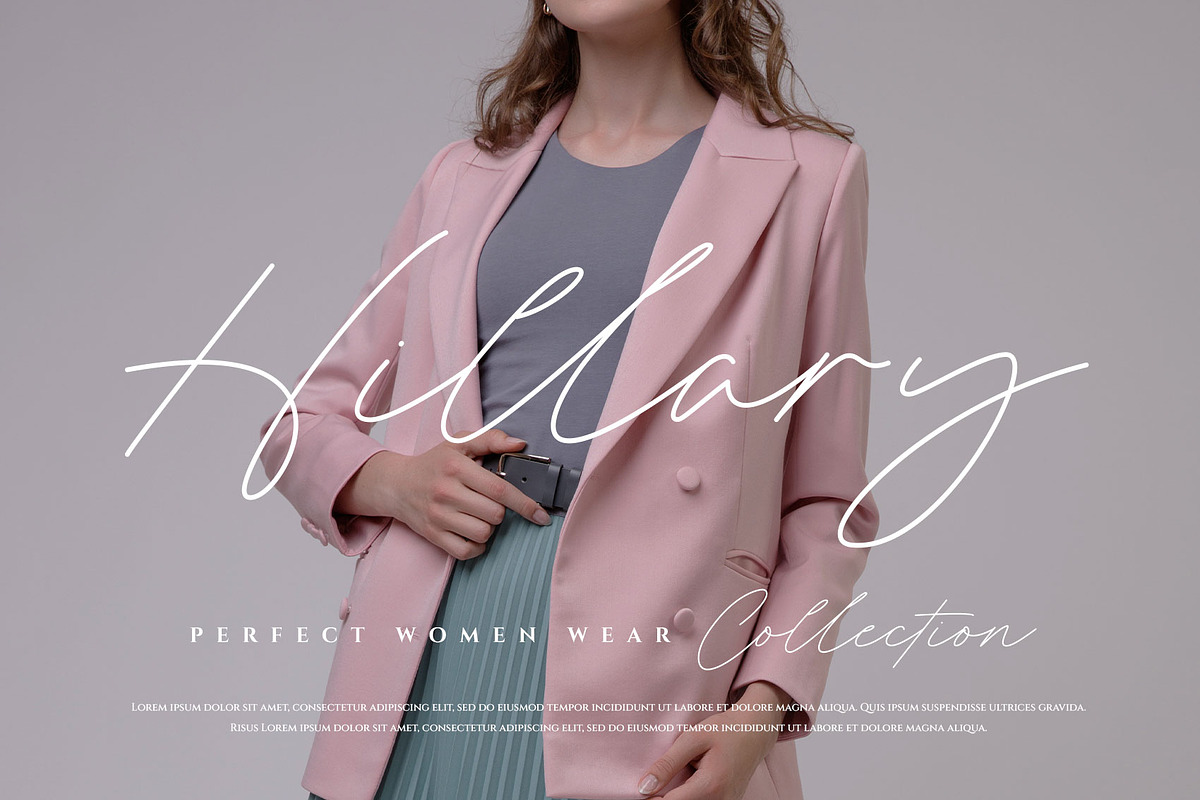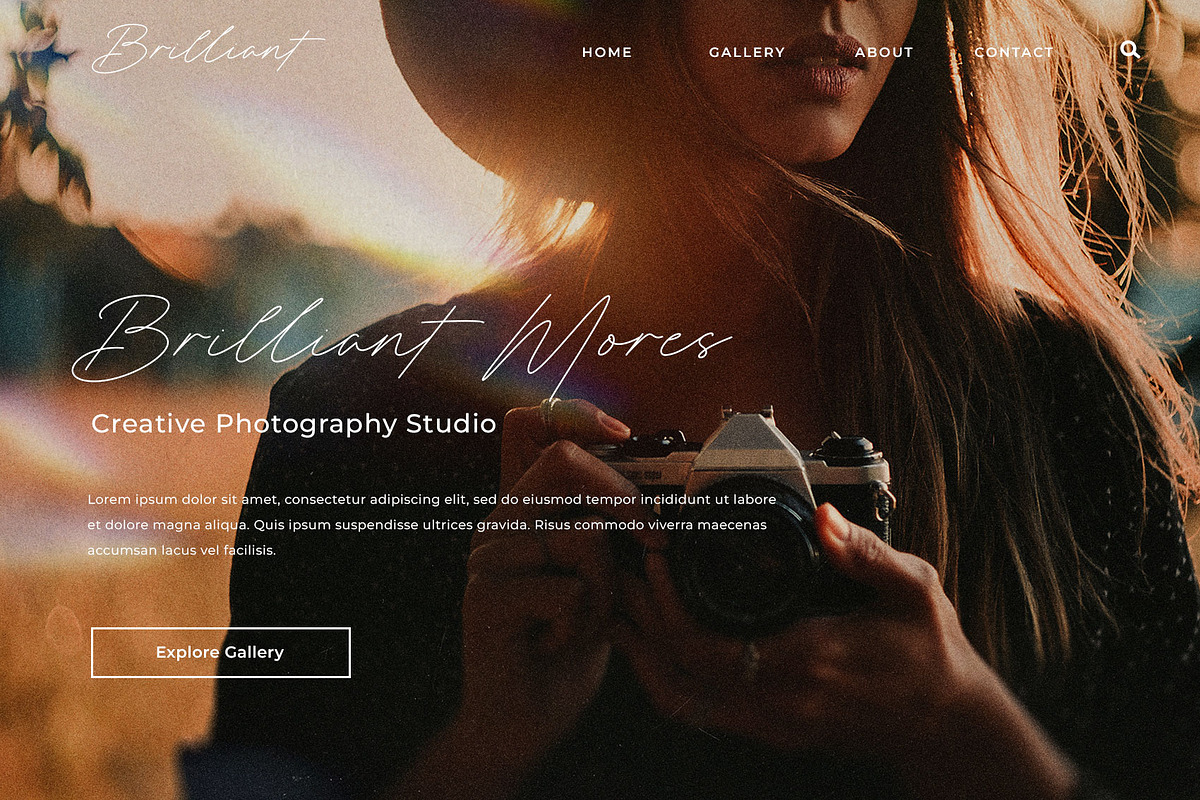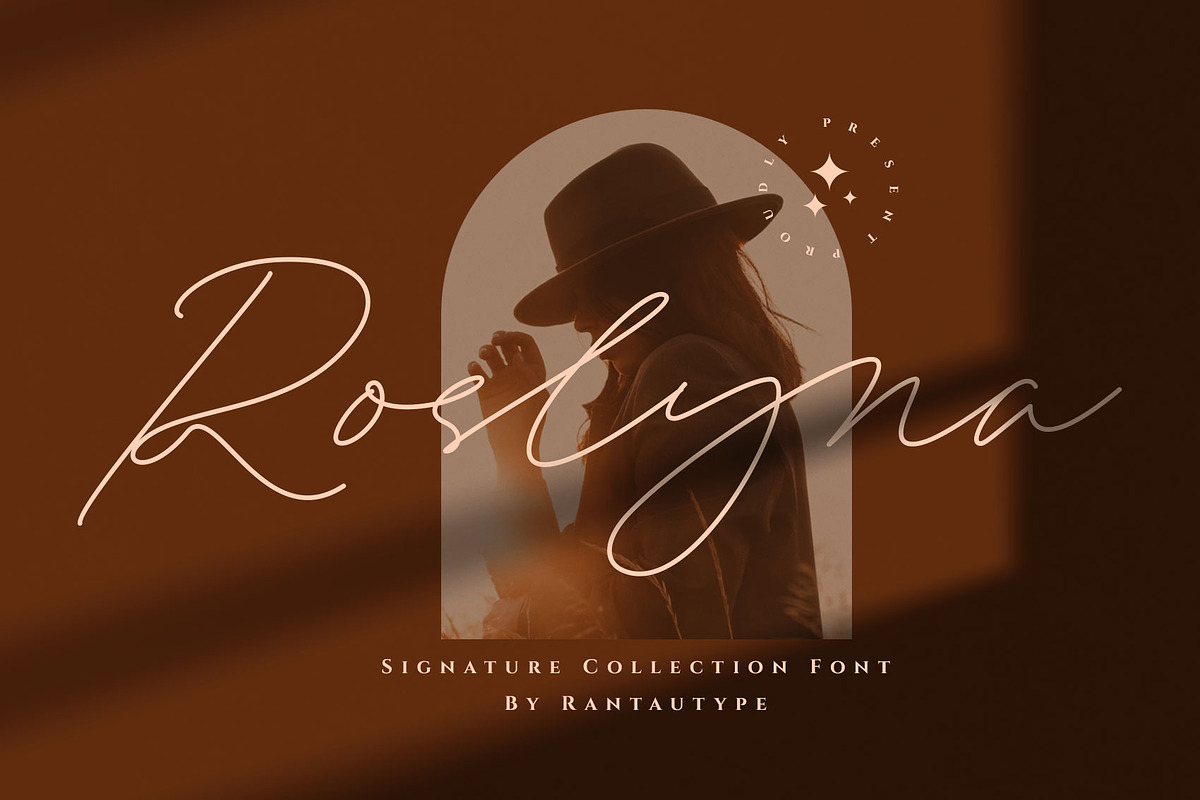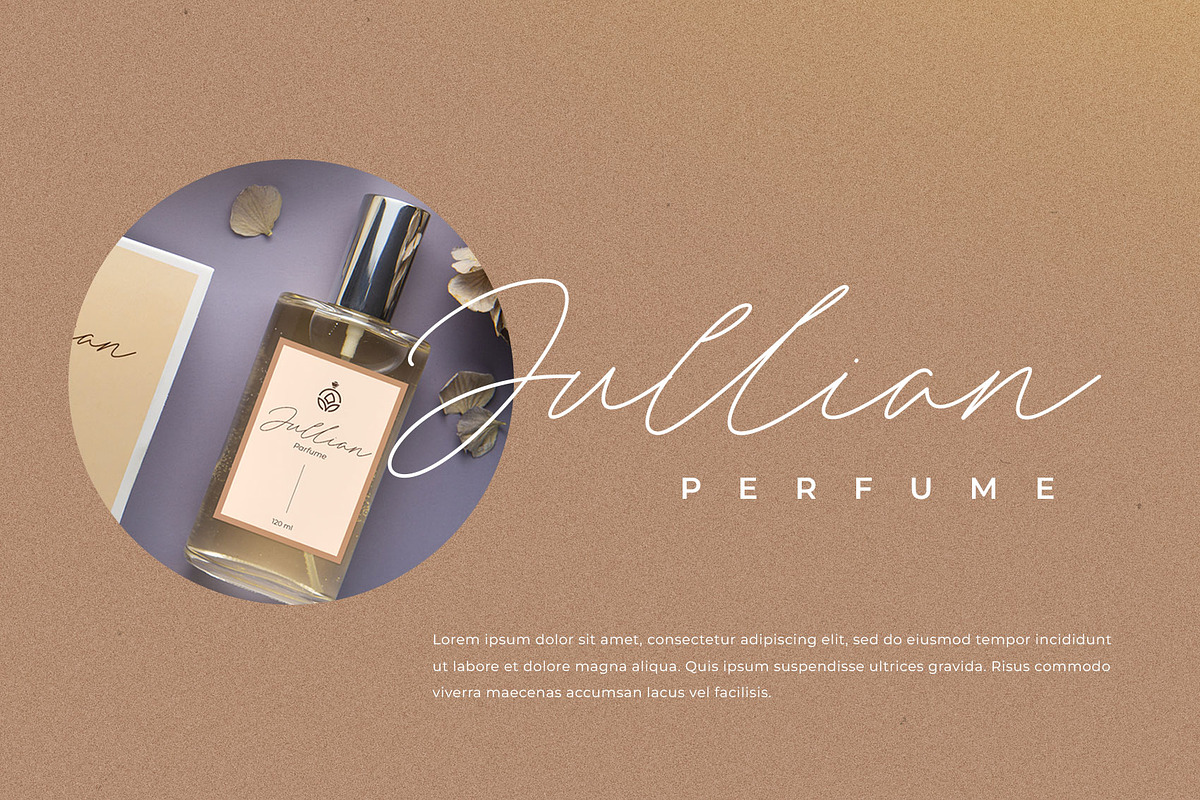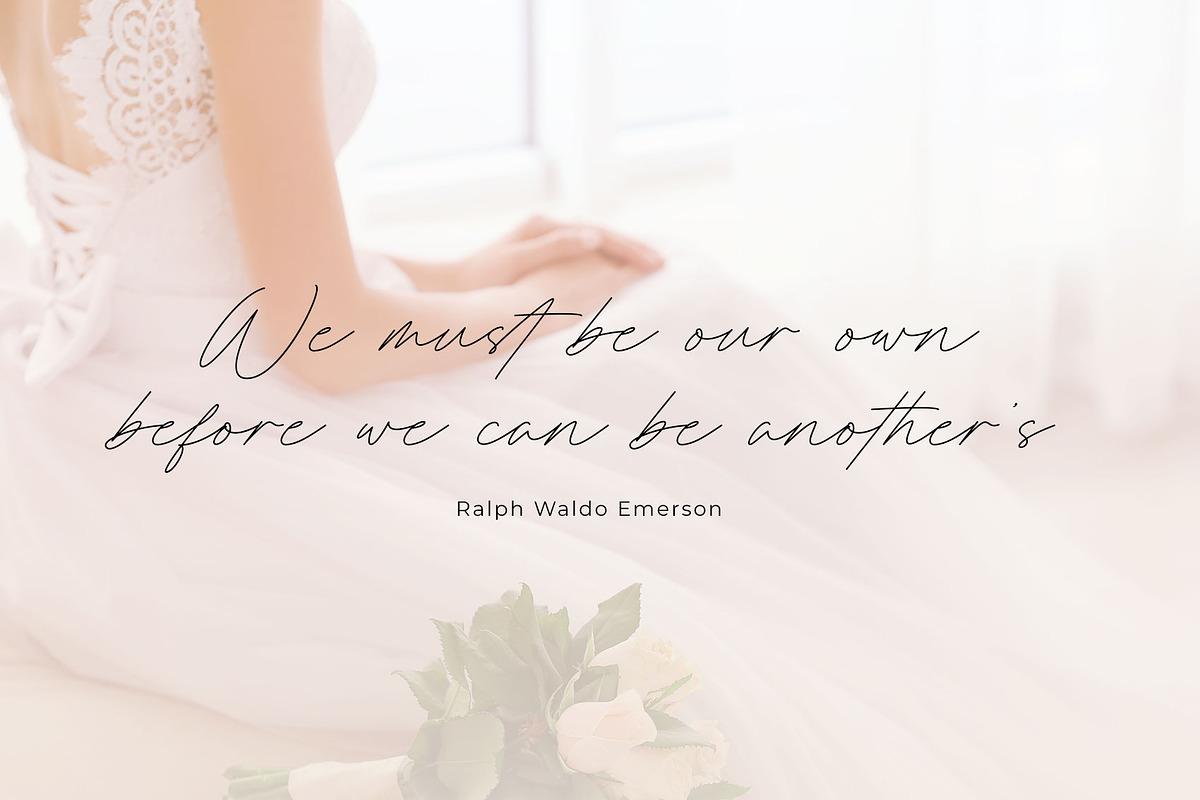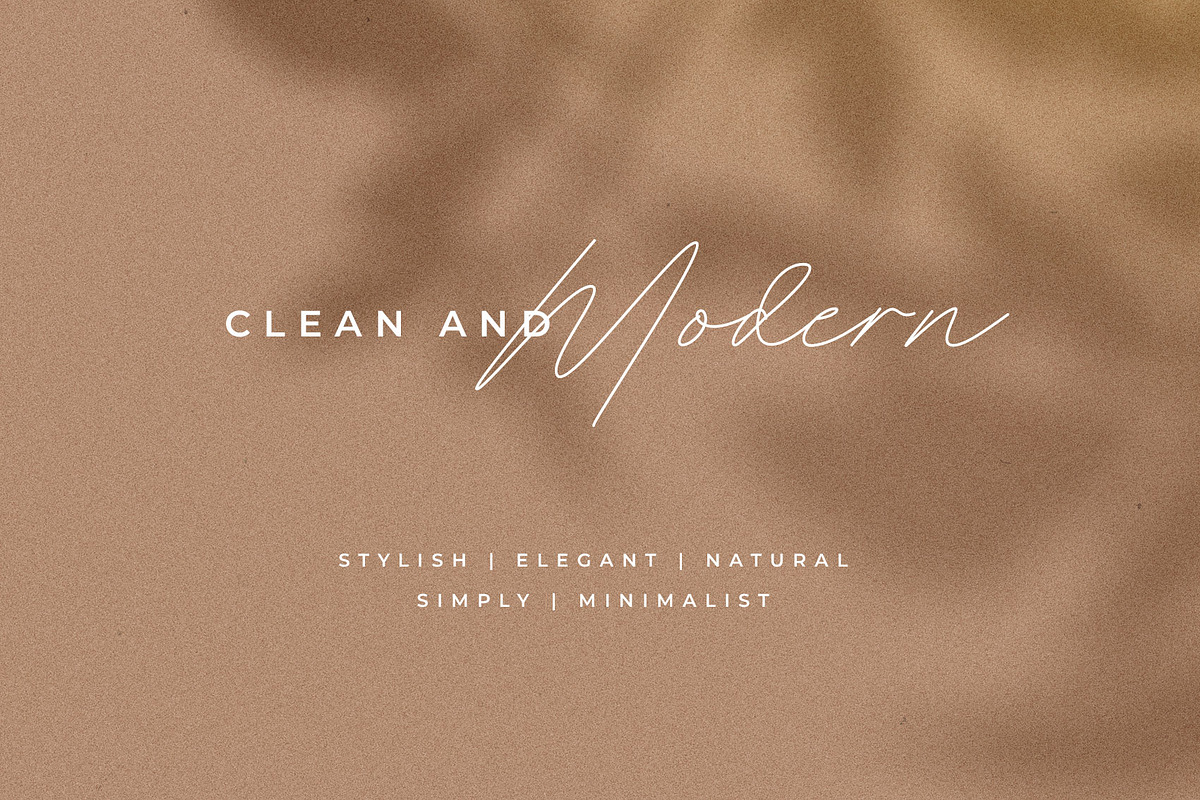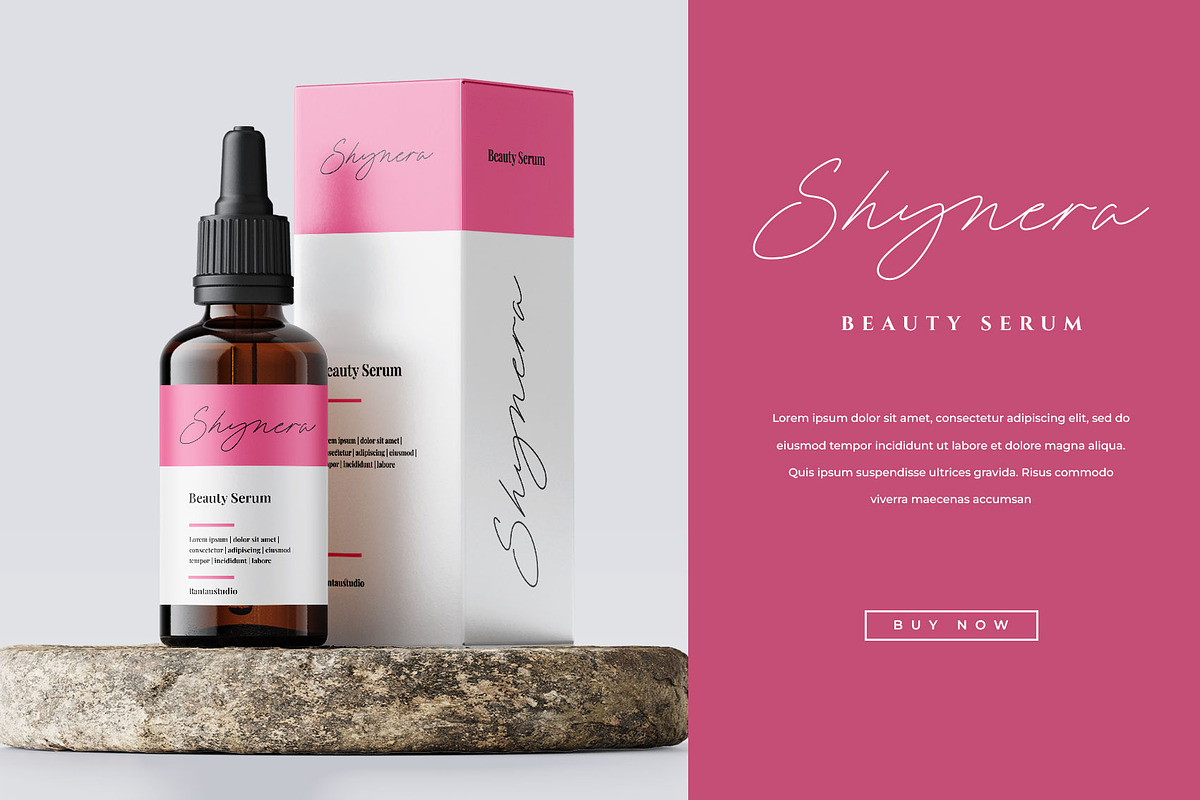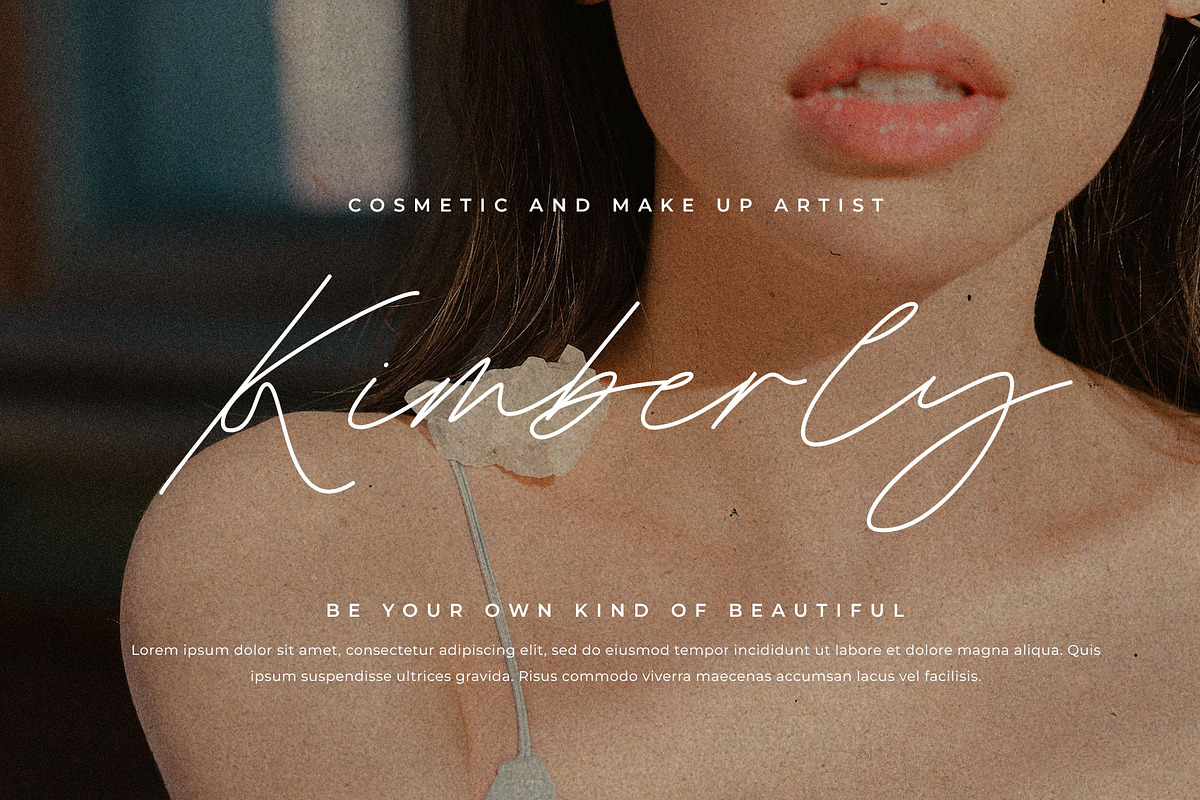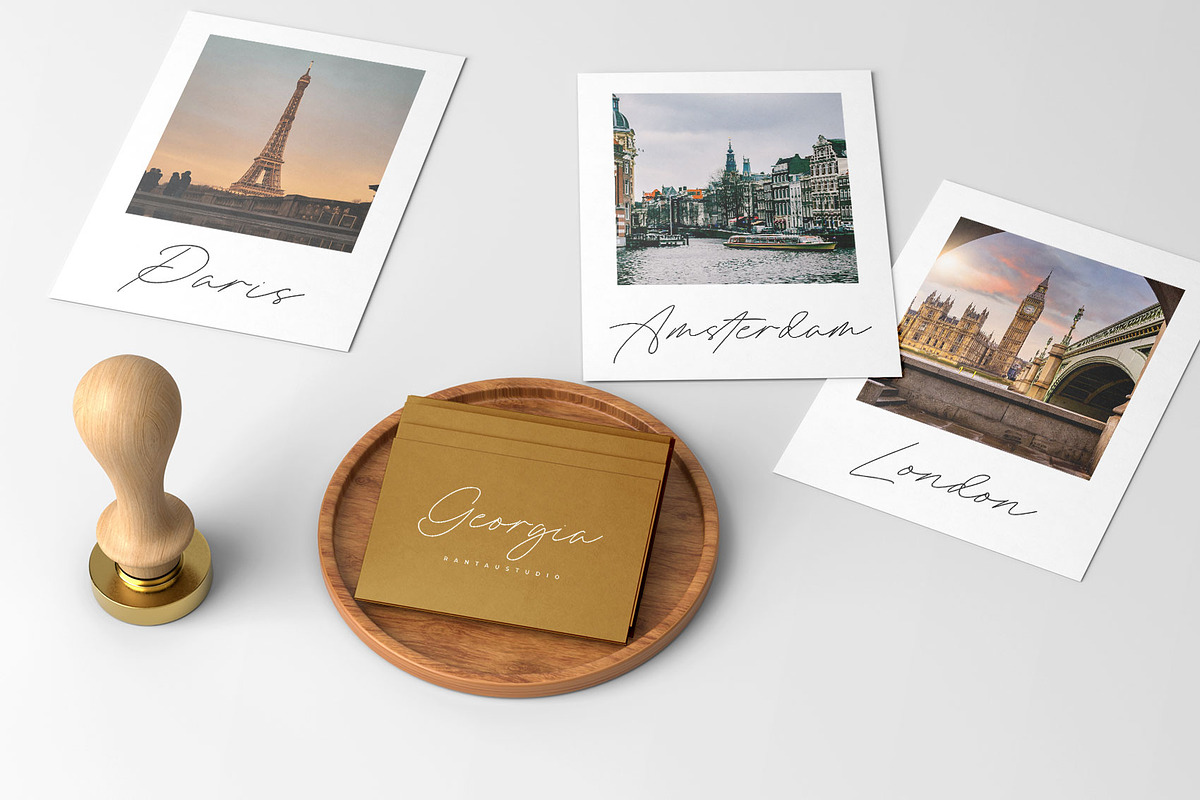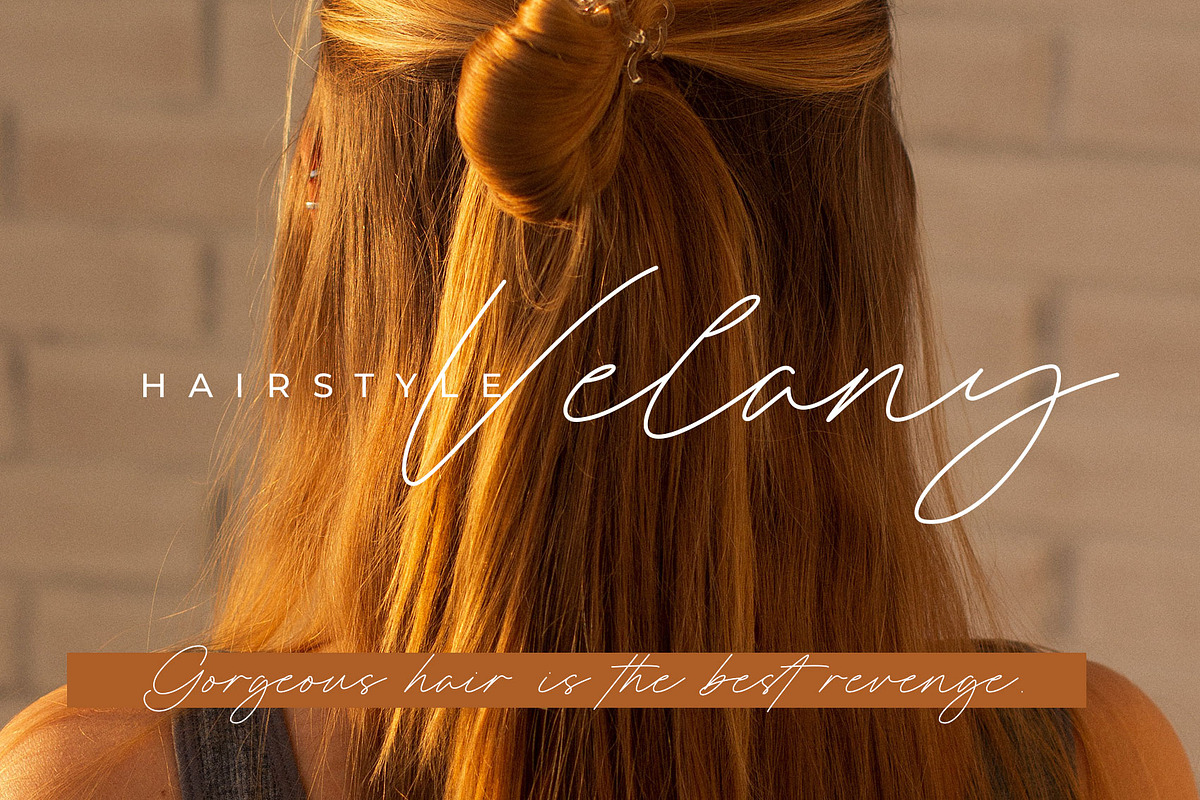
Roslyna Creative Business Font
Roslyna is modern and creative business font which can be interpreted professional with stylish and natural curve. We keep this font looks modern, minimalist, elegant, readable, stylish, catchy and easy to use. Roslyna come with ligature, alternate and multilingual accent support.
Roslyna is a beautiful choice for any creative endeavor, chic, lifestyle design such as logos, title, watermark on photography, cover, branding, display and magazine, wedding event, quotes, album cover, business card, corporate, business project and many other design project. Roslyna here to make your work stand out!!
- Standar character A-Z and a-z
- Ligature and alternate
- Multilinggual accent support